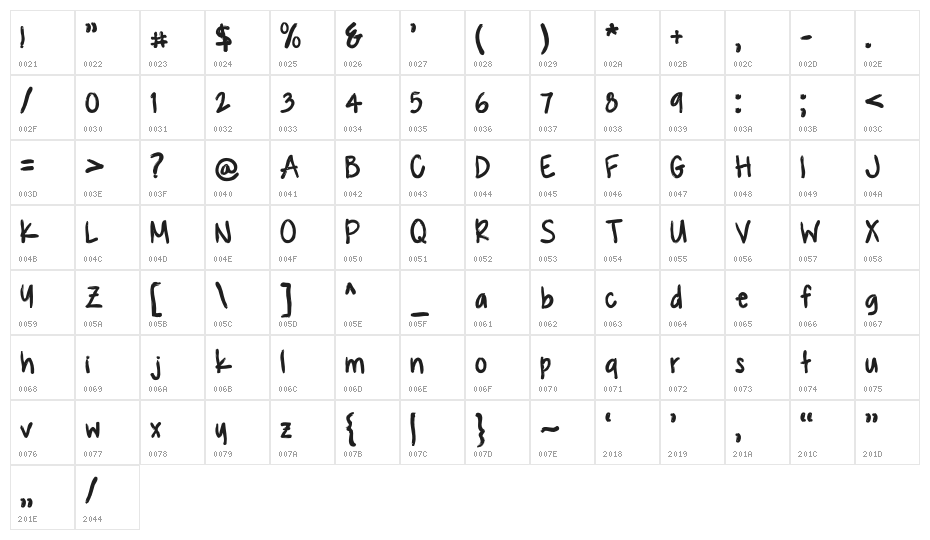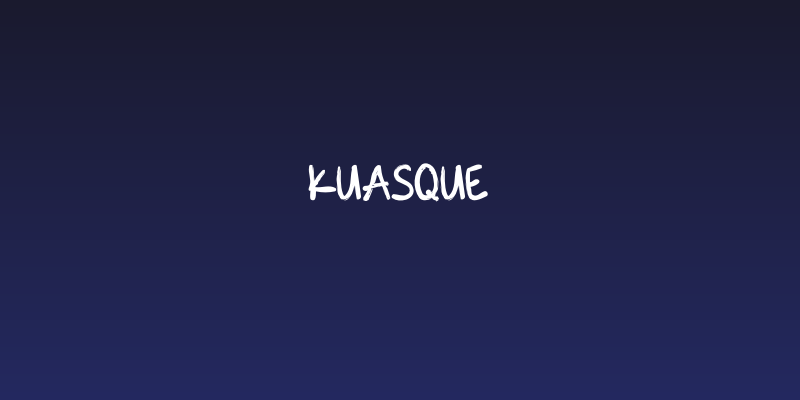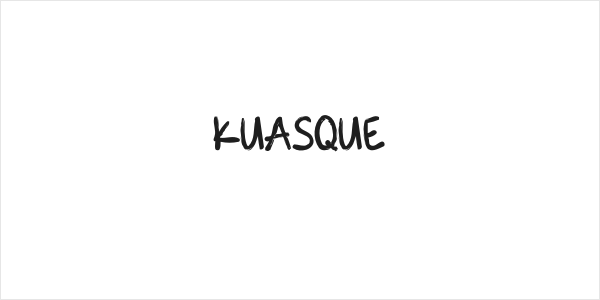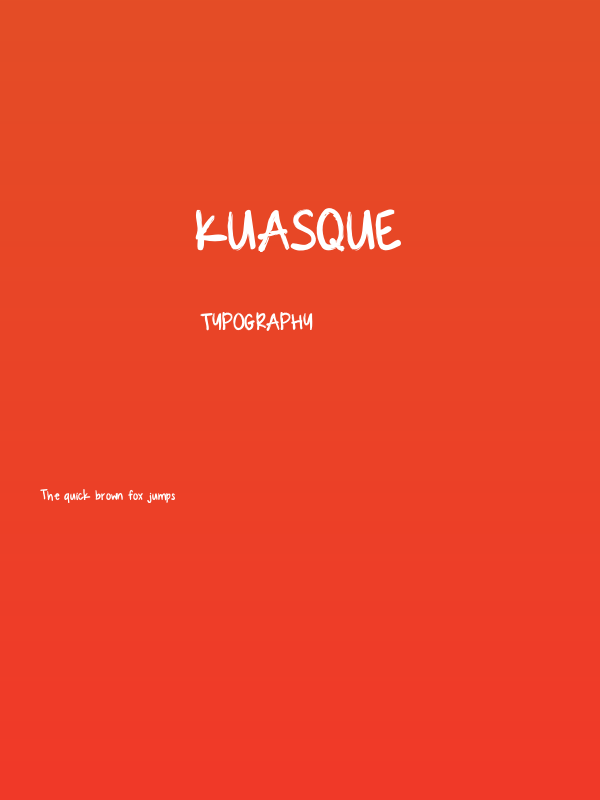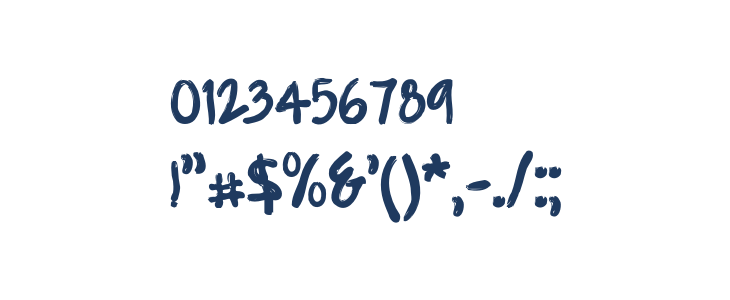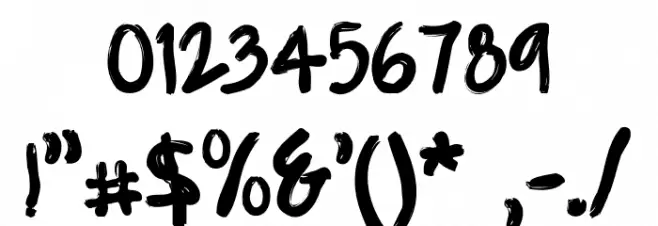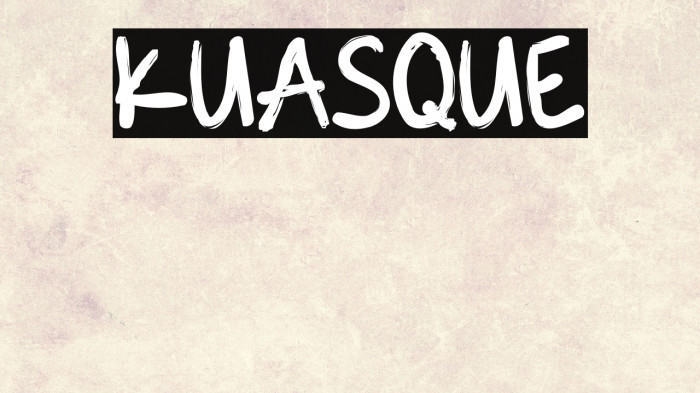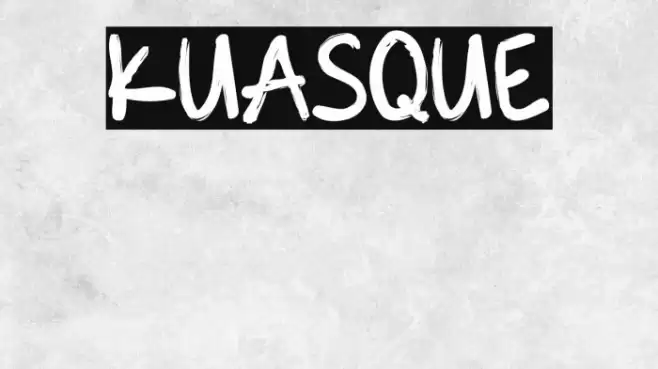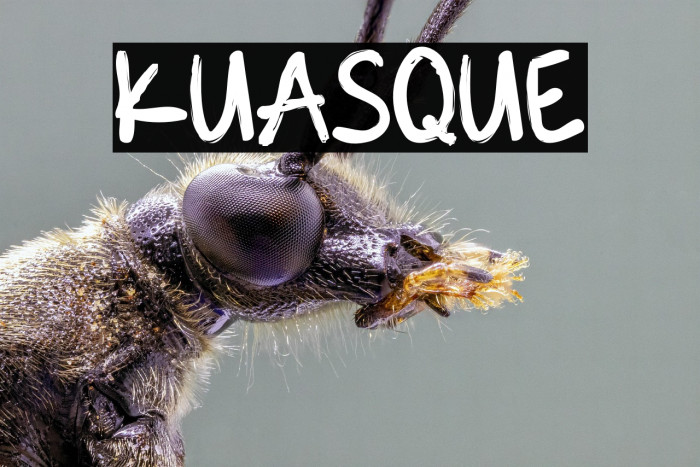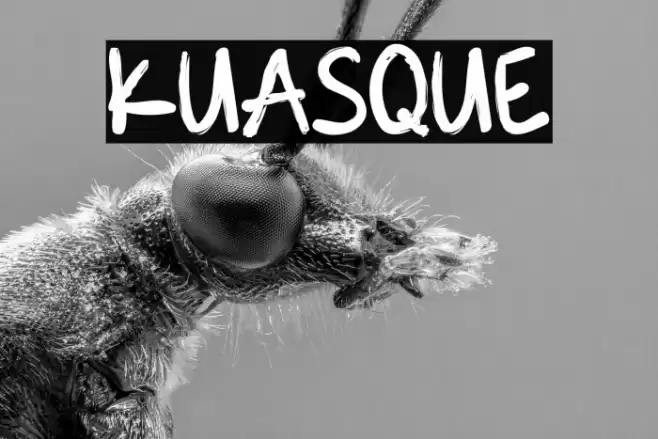
KUASQUE Font
KUASQUE Description
This font exudes a playful and energetic vibe with its bold, hand-drawn appearance. The letters are slightly irregular, giving it a casual and informal feel. The strokes are thick and consistent, providing a strong visual impact. The uppercase and lowercase letters maintain a cohesive style, while the numerals and special characters complement the overall look. This font is ideal for projects that aim to convey a sense of fun and creativity, making it perfect for children's books, posters, and playful branding.
| Proposed Projects | Children's books, posters, playful branding, creative invitations. |